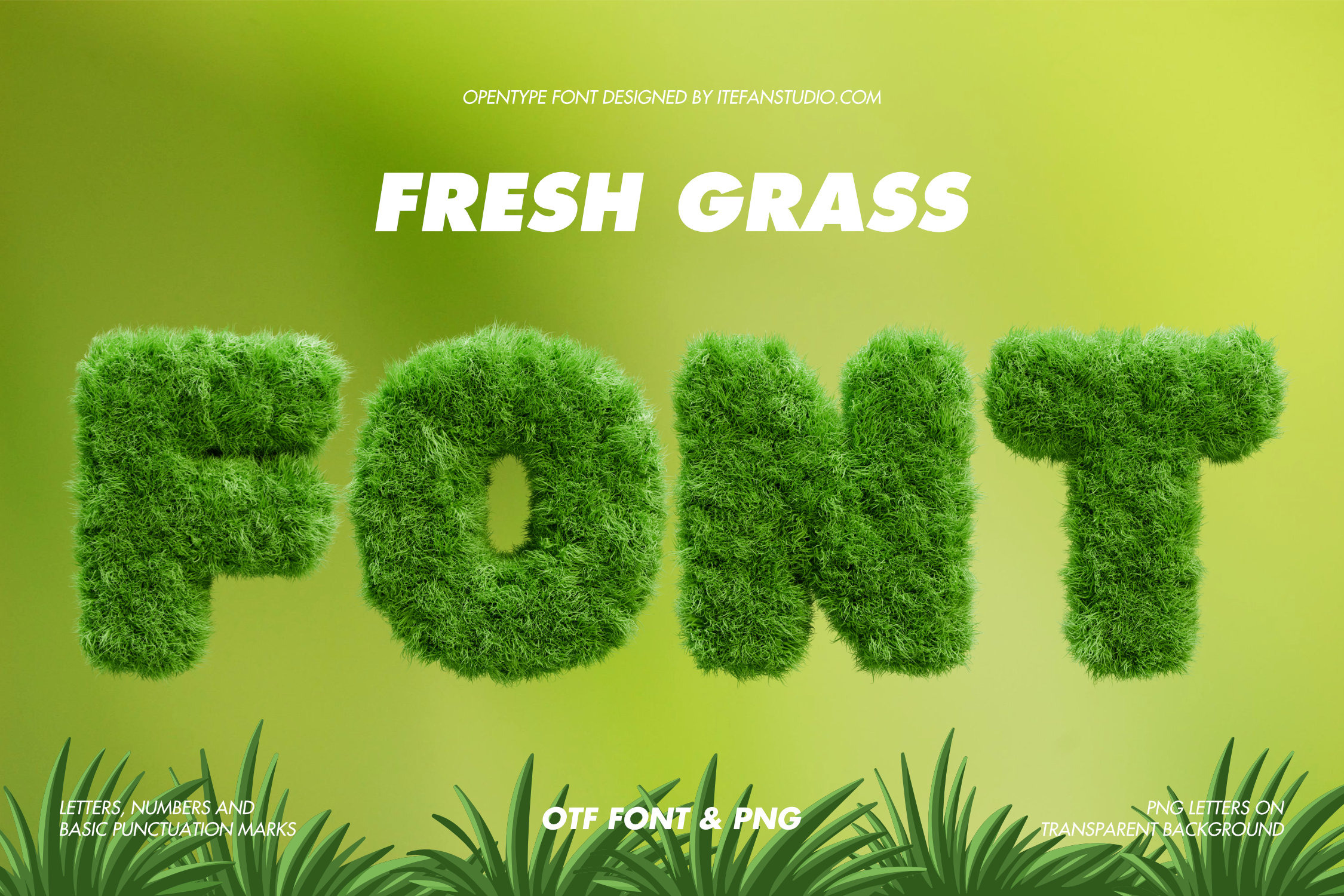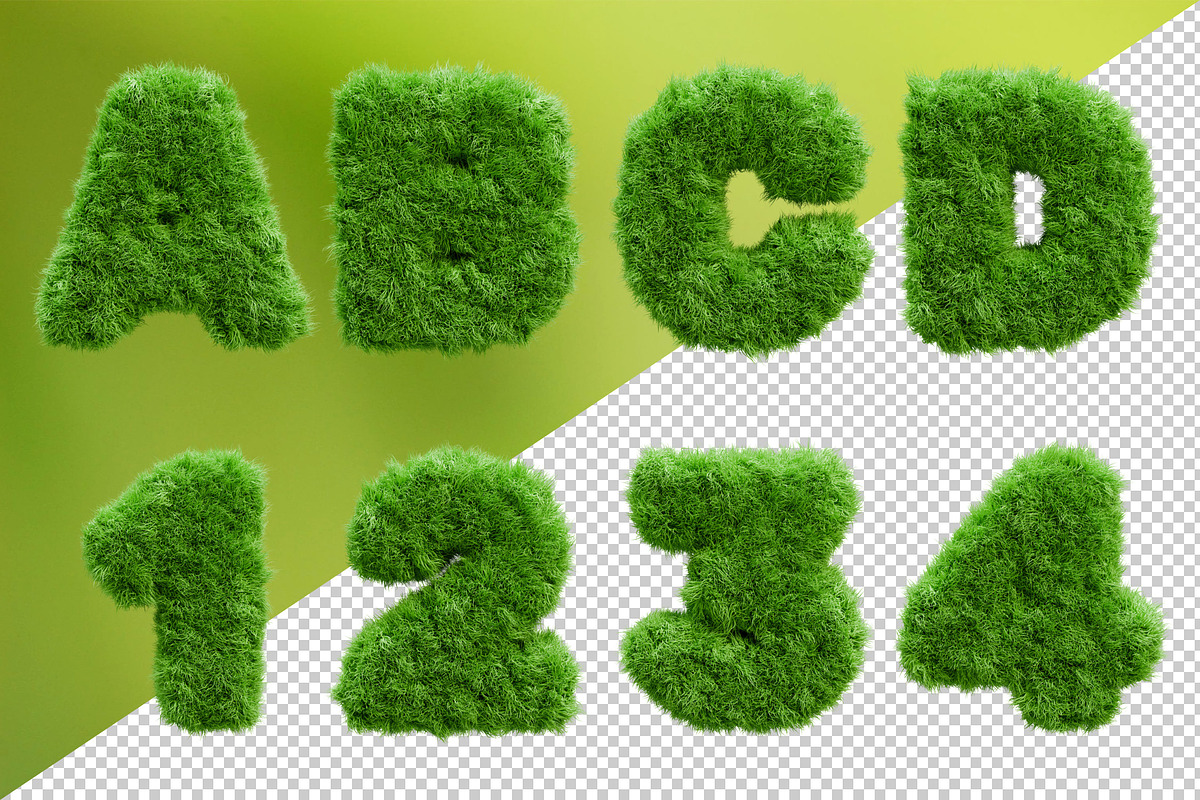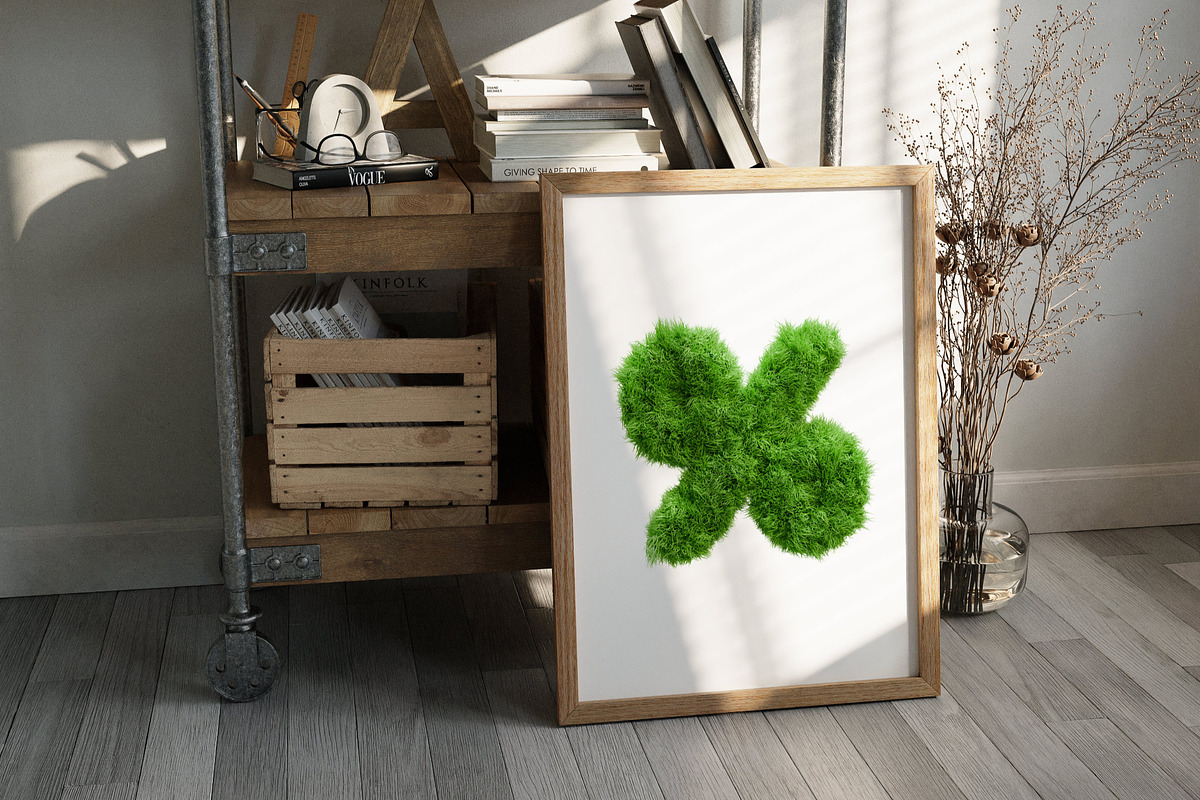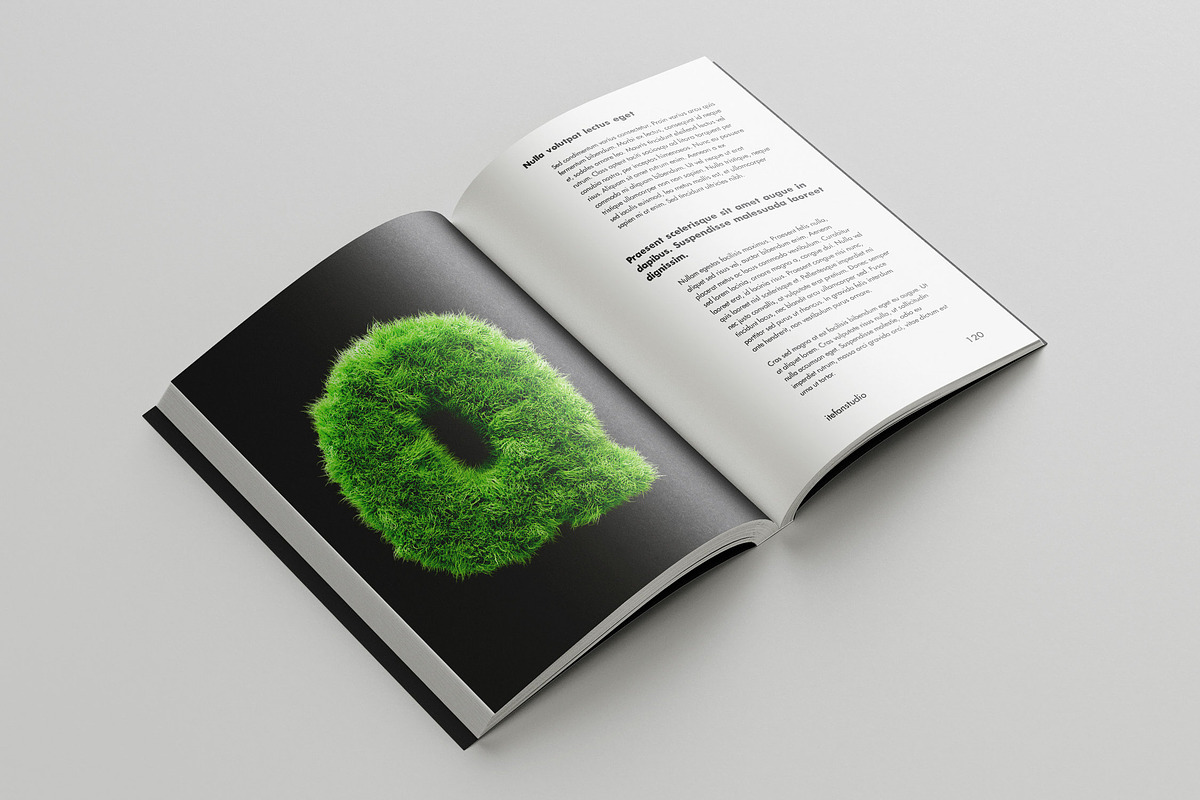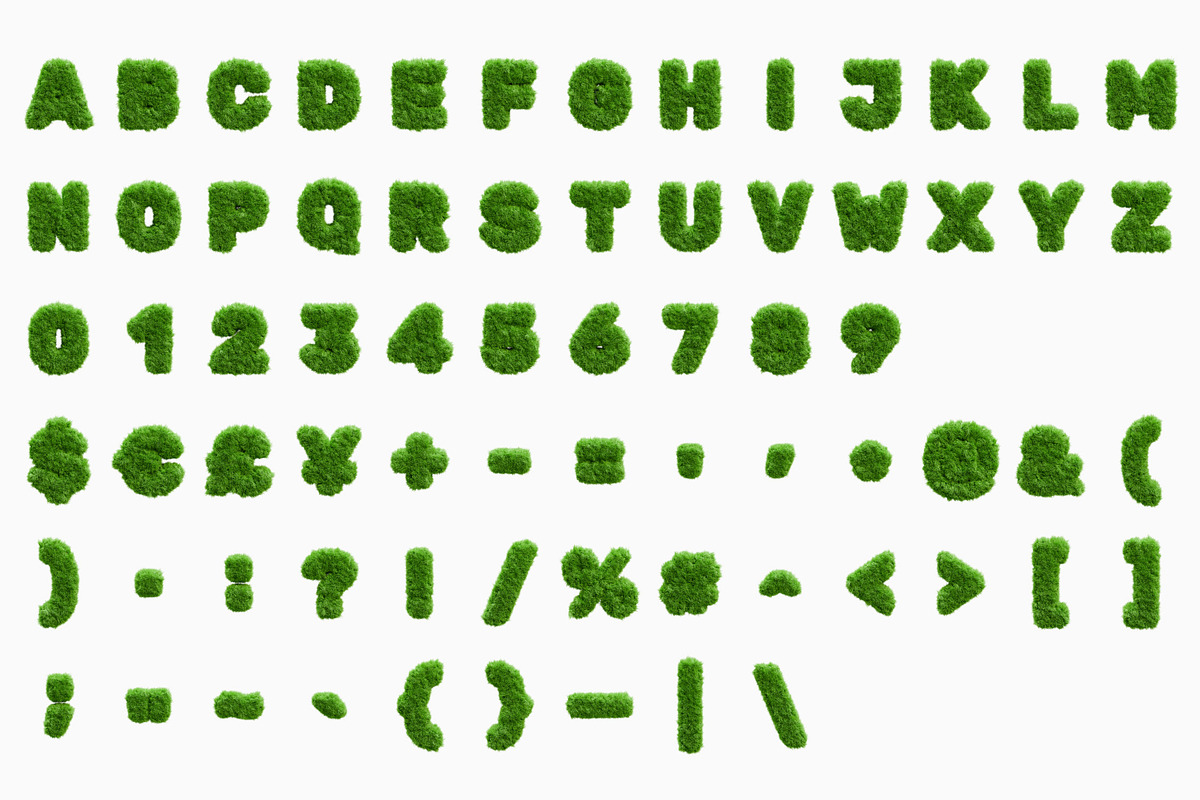
Fresh Grass Font
A unique font bringing a fresh, natural vibe with the soft texture of a lawn. Crafted to mimic real grass's vibrant, meadow-like ambiance, it offers a bold, organic aesthetic for eco-friendly branding and nature-themed designs. Perfect for eco-conscious creators to elevate typography with a sustainable touch! Available in both OTF and PNG formats with transparent backgrounds.
- Letters : A B C D E F G H I J K L M N O P Q R S T U V W X Y Z
- Numbers : 0 1 2 3 4 5 6 7 8 9
- Others : $ € £ ¥ + - = ' , * @ & ( ) . : ? ! / % # ^ [ ] ; " ~ ` { } _ |
This font is a high-resolution OpenType typeface featuring uppercase letters, numbers, and basic punctuation, with each character approximately 800 pixels tall. A complete preview of all letters and glyphs is provided for reference.